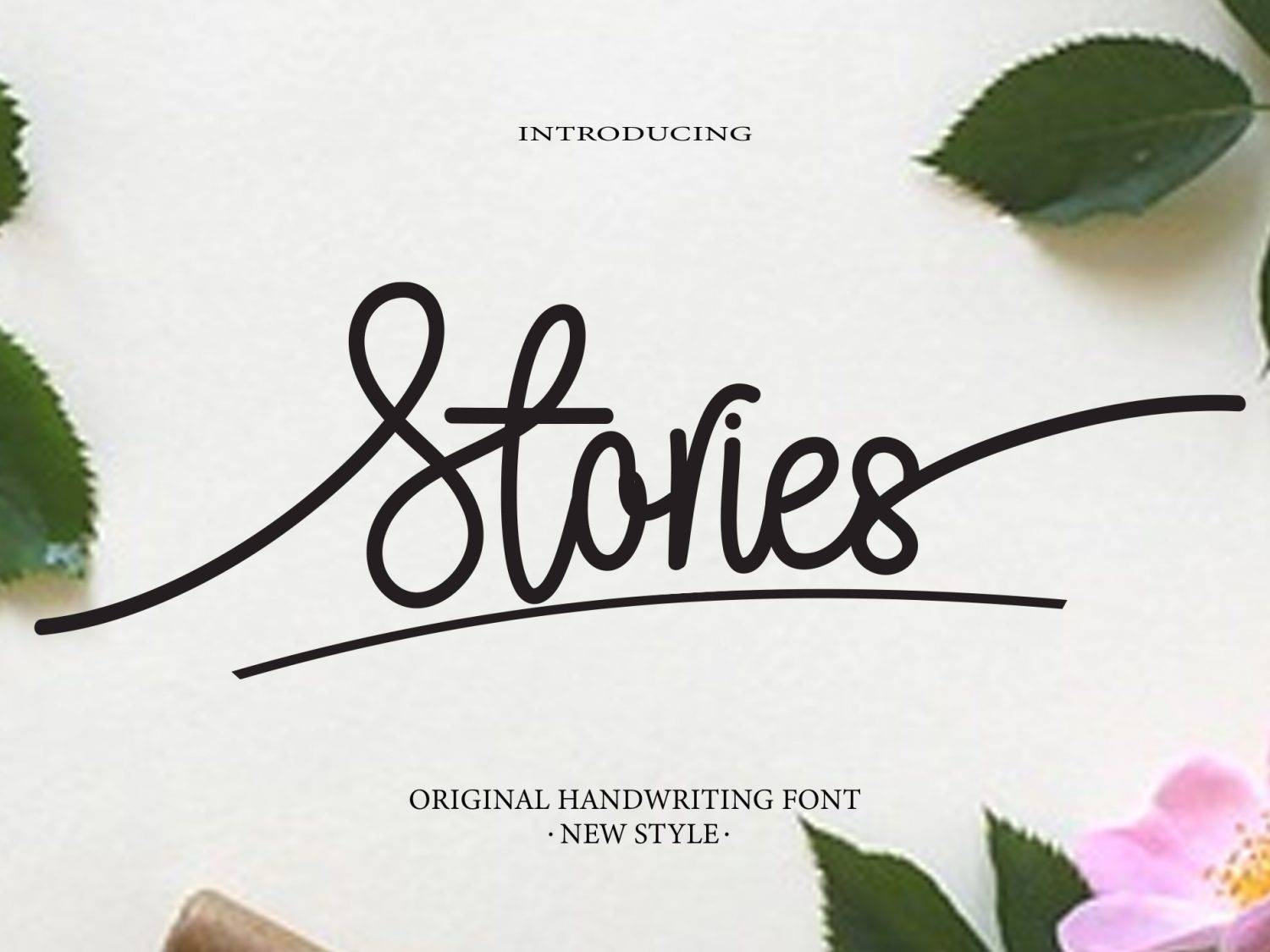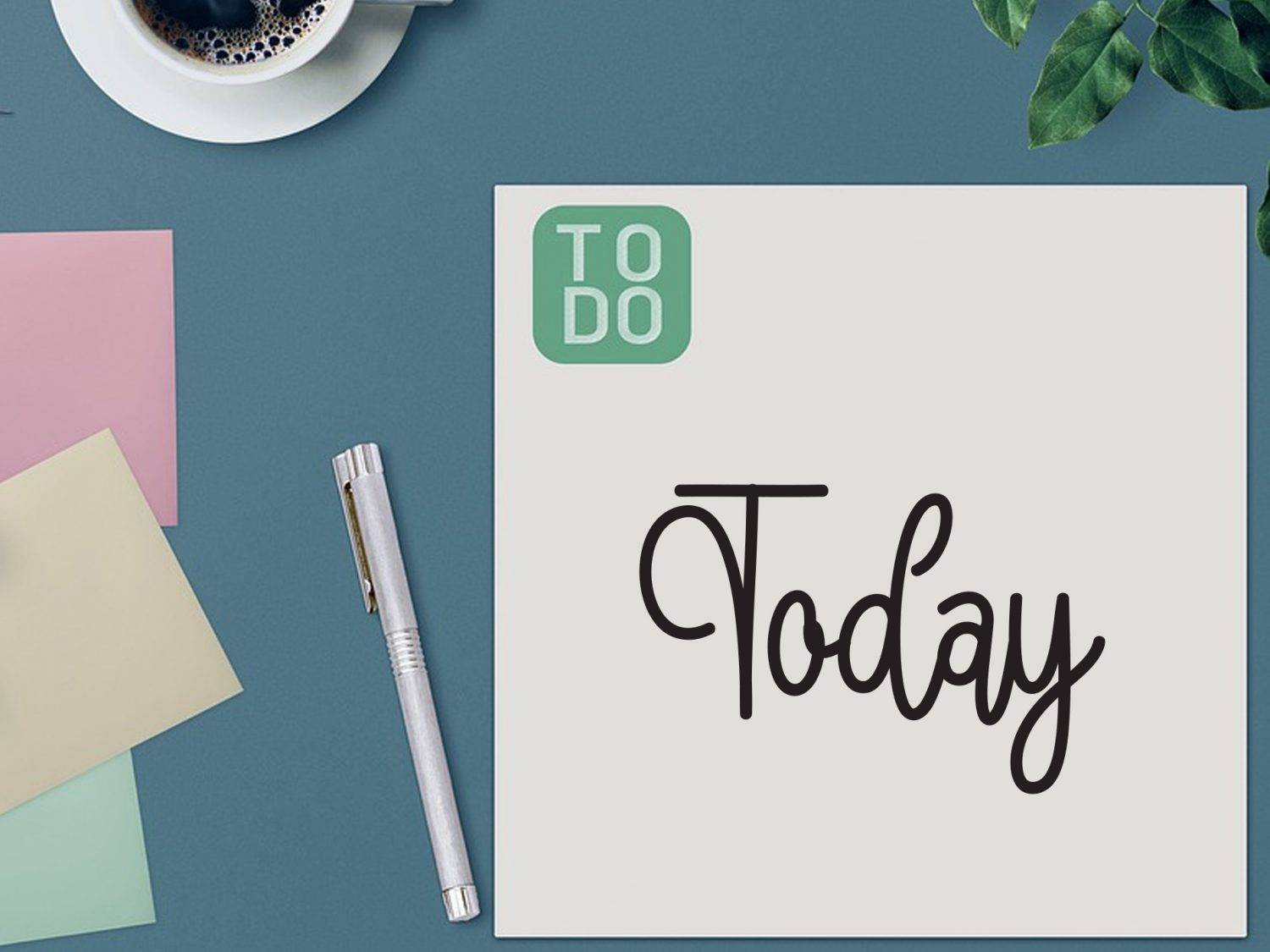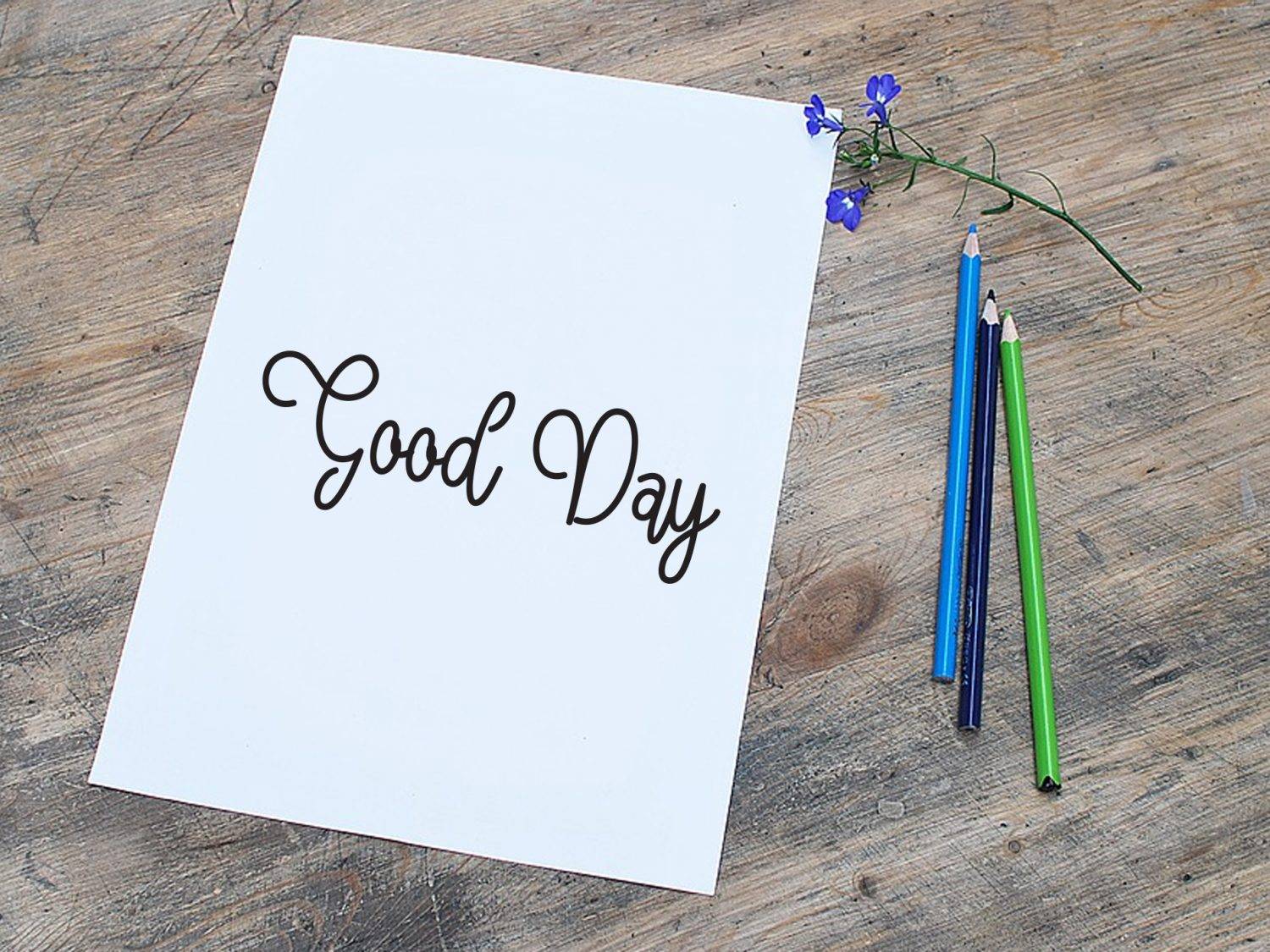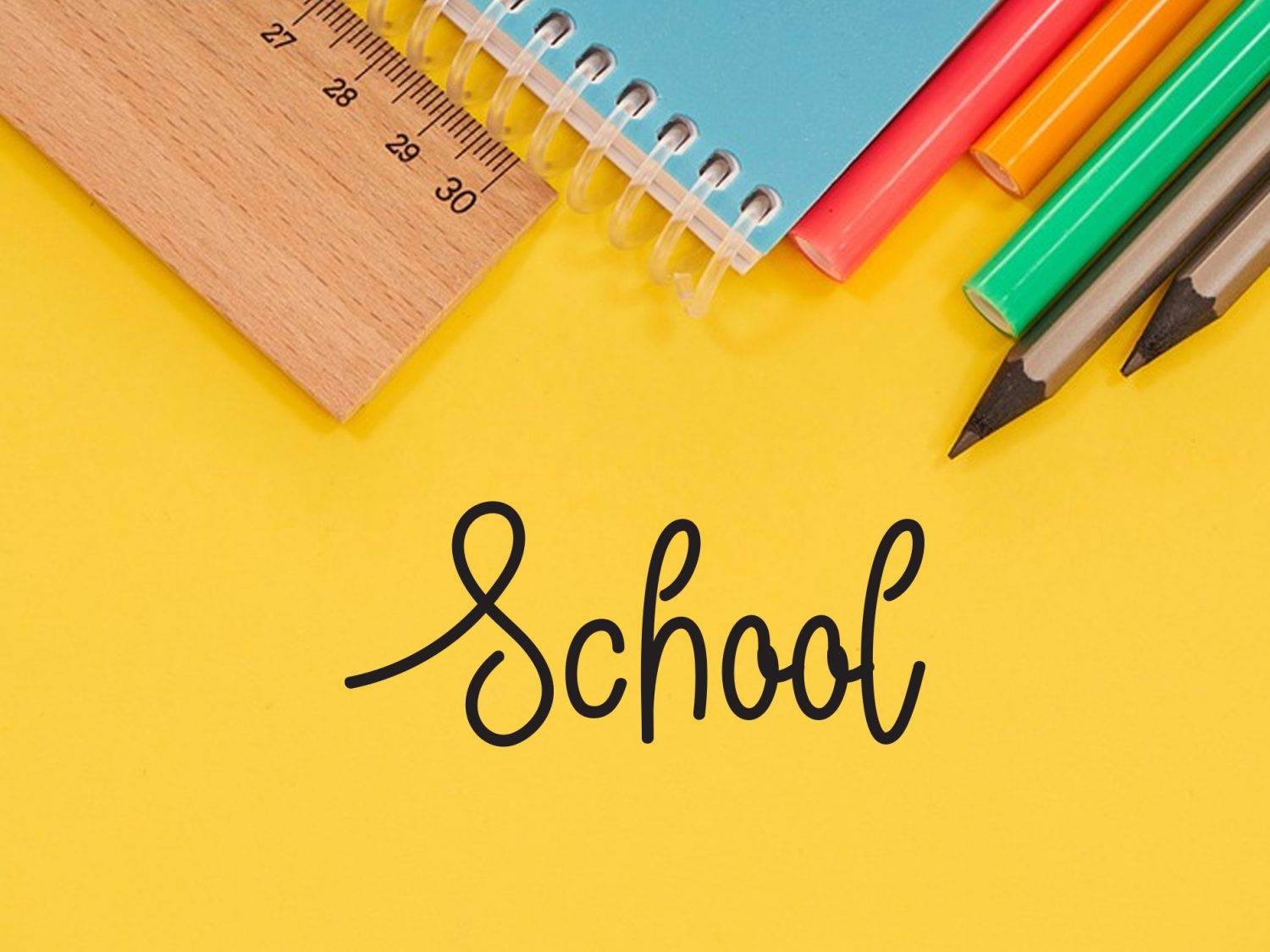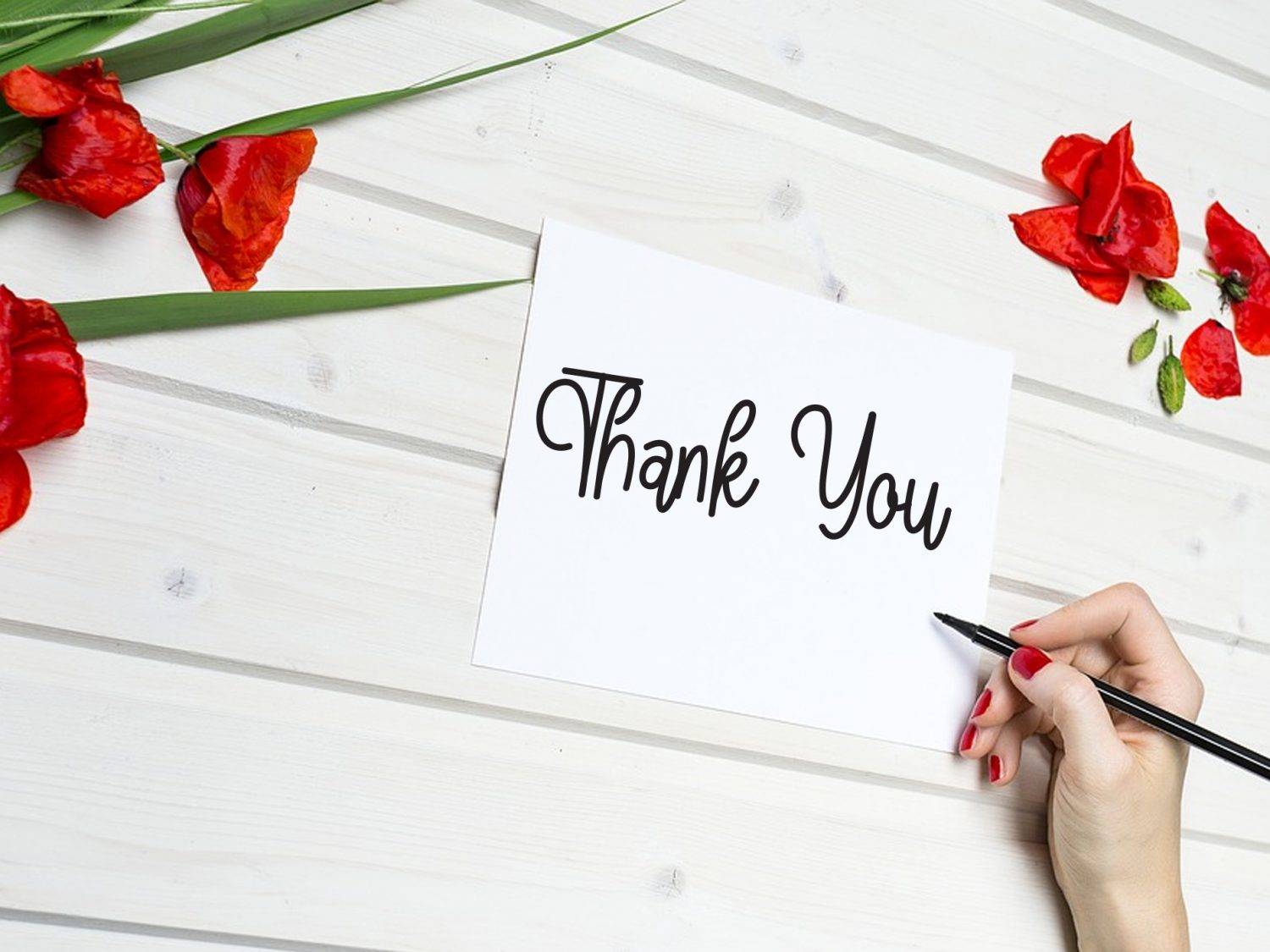
Stories Font is a whimsical, handwritten script with a playful and airy feel, featuring tall, narrow letterforms with delicate, flowing strokes. Its unique loops and curls give it a charming, casual character perfect for creative projects, invitations, and branding that seeks a friendly, personal touch. This font works beautifully for headlines, logos, and designs that want to convey a sense of fun and individuality.
Stories Font